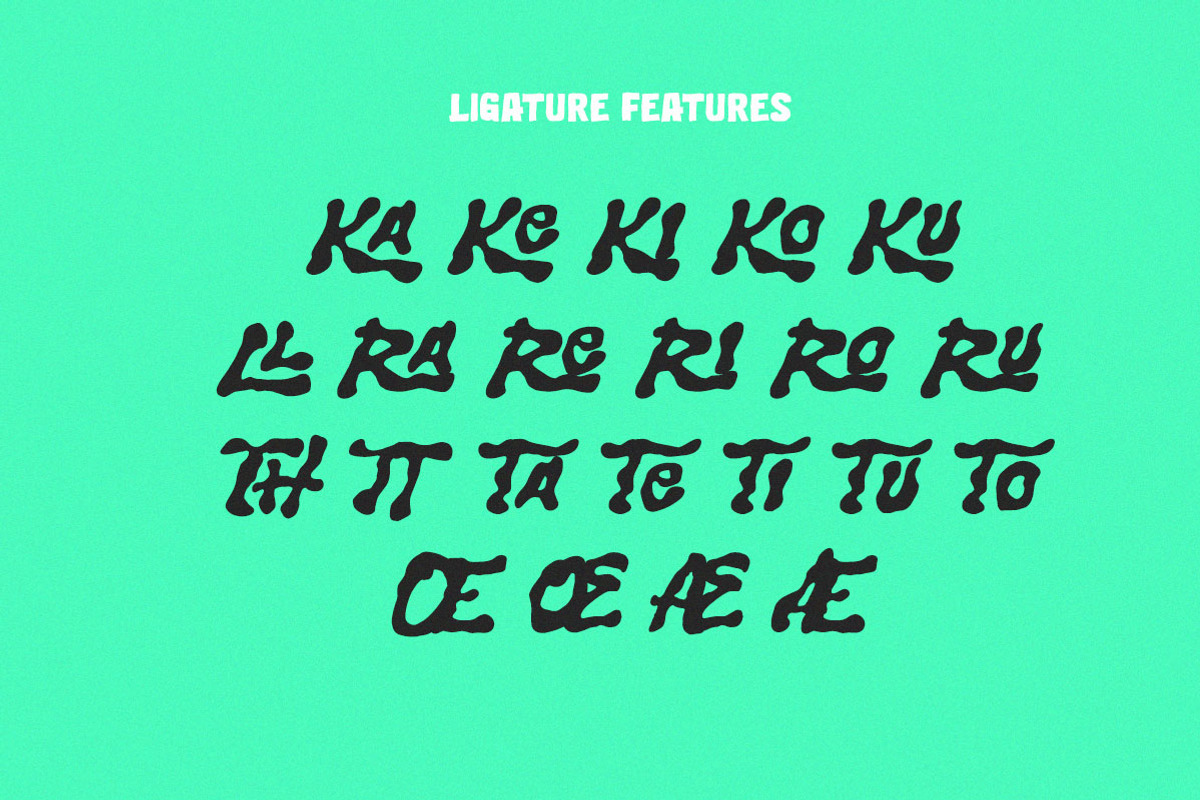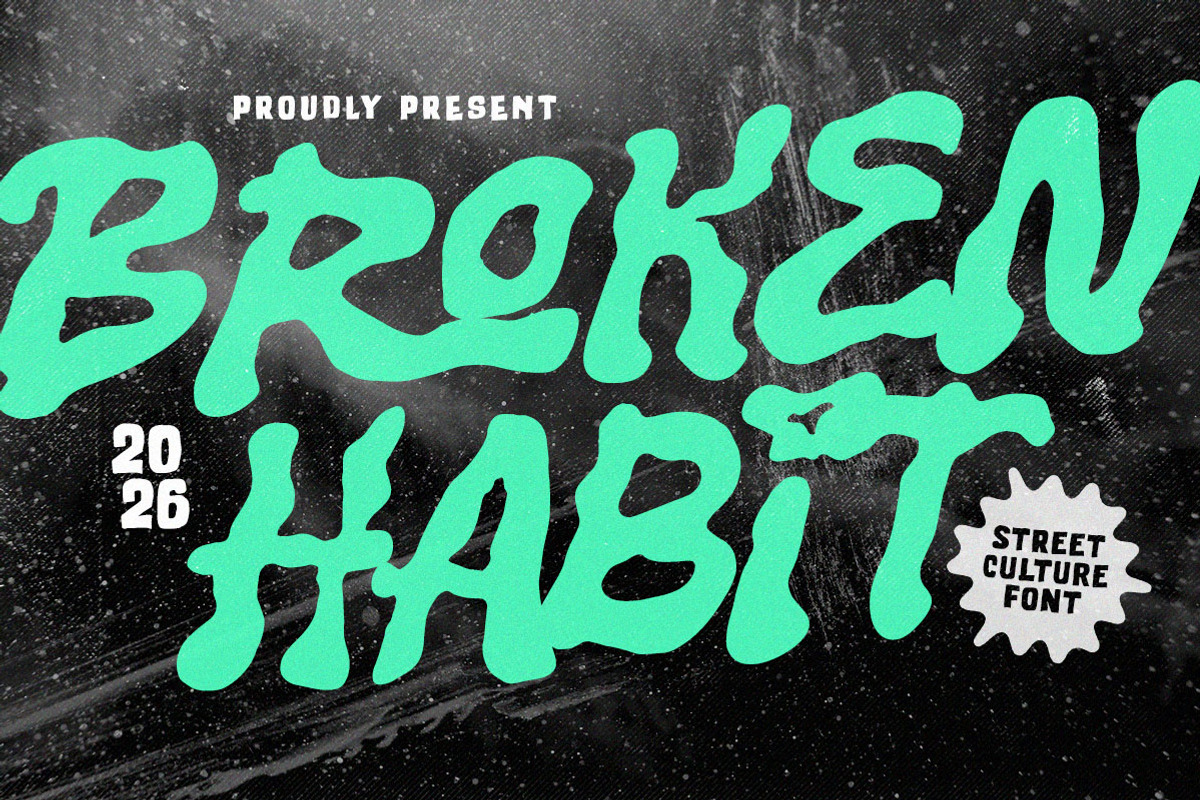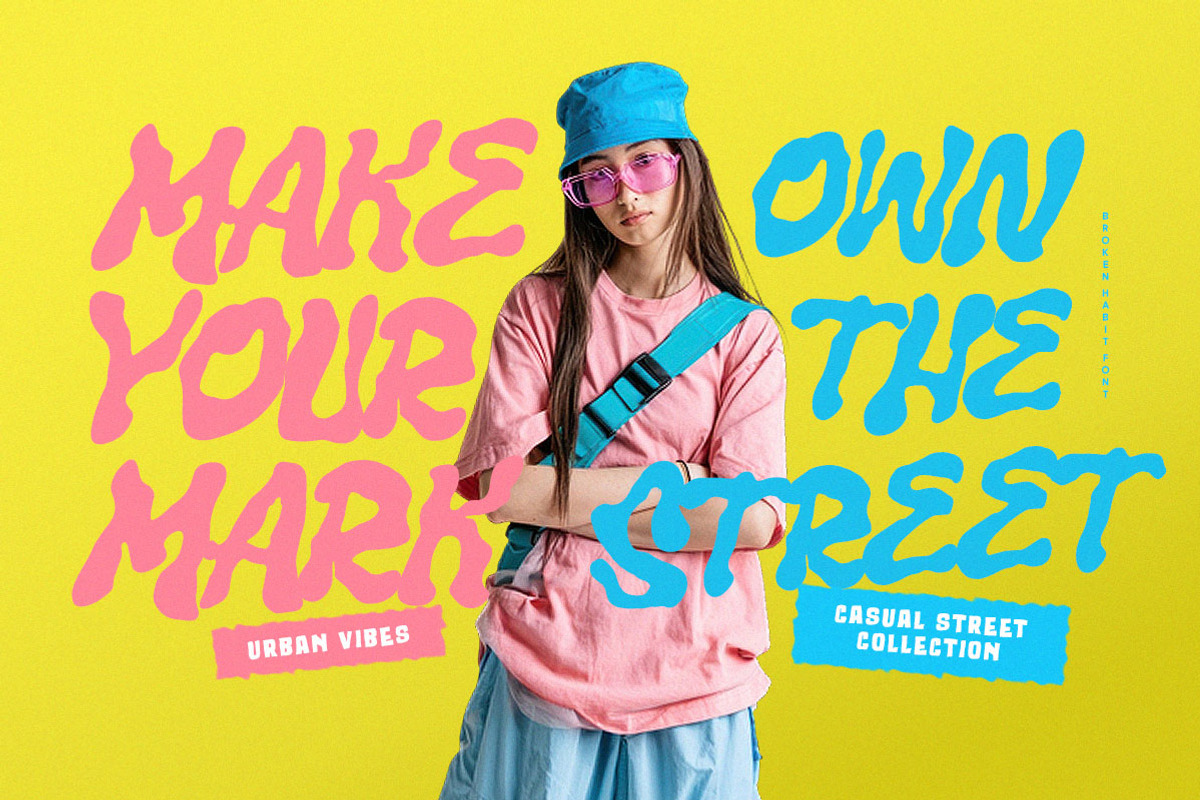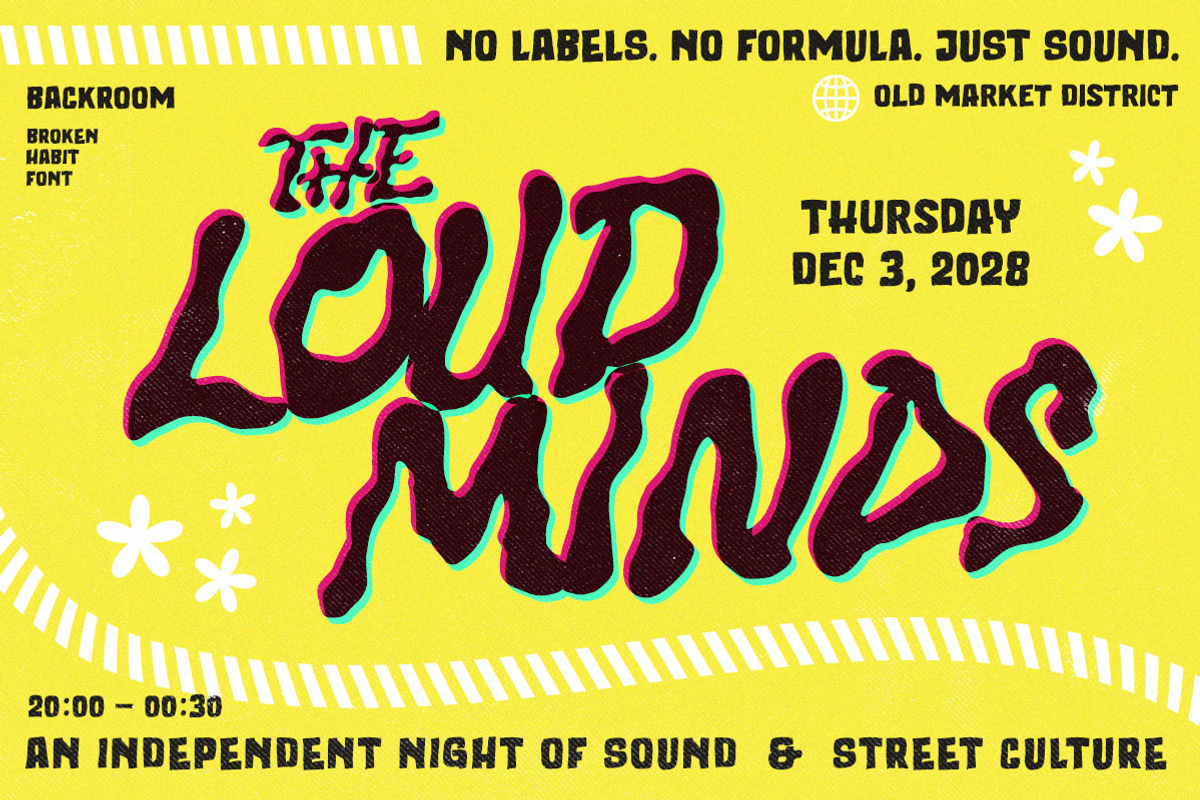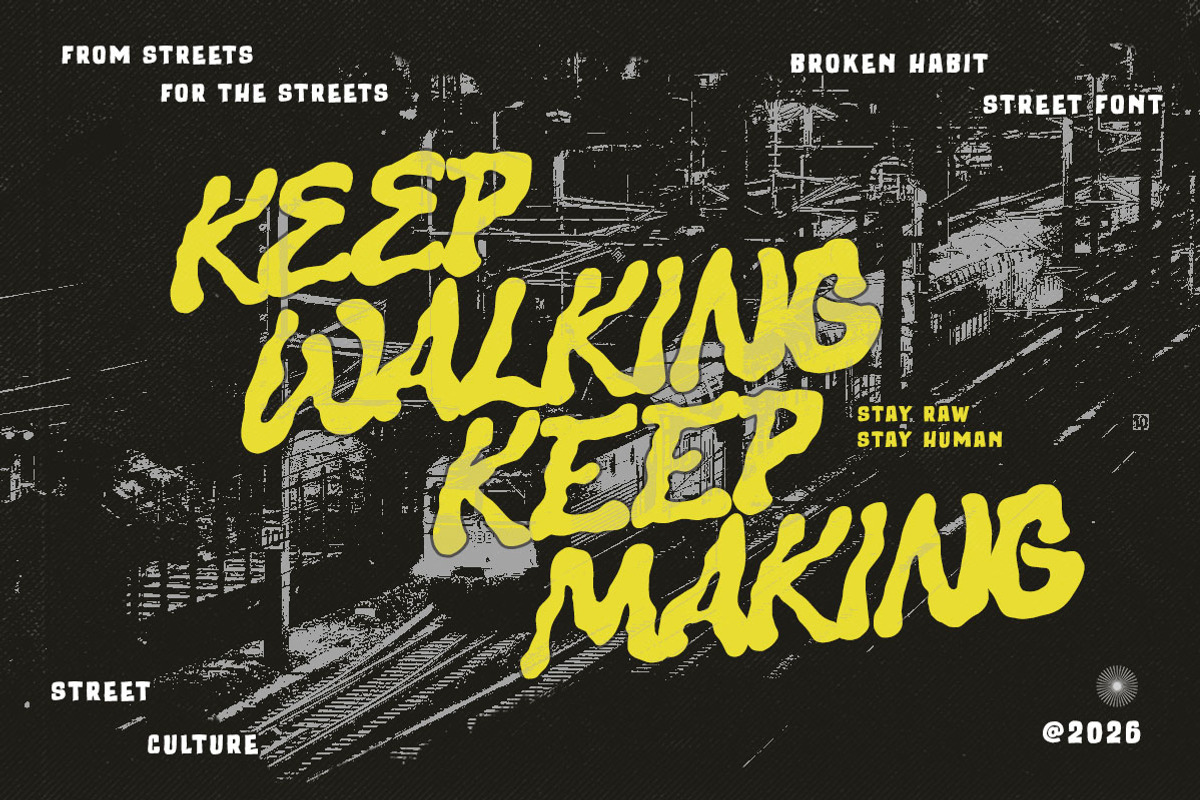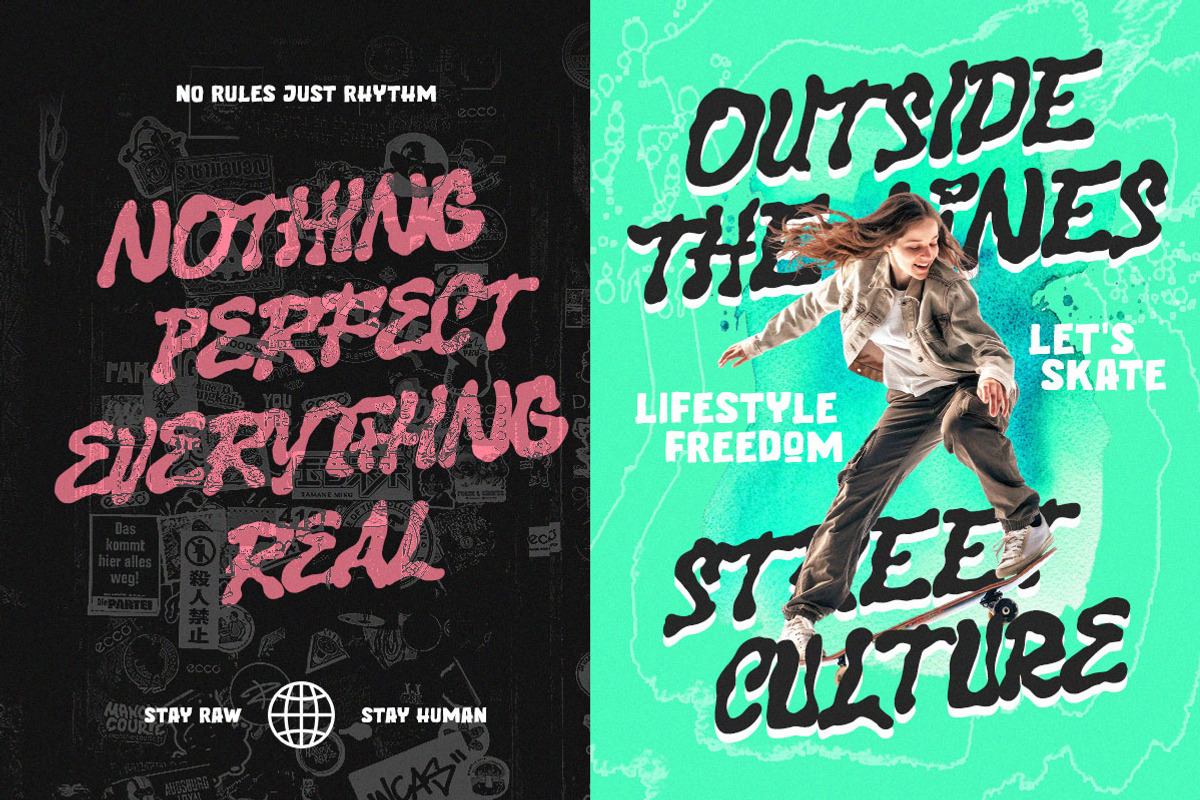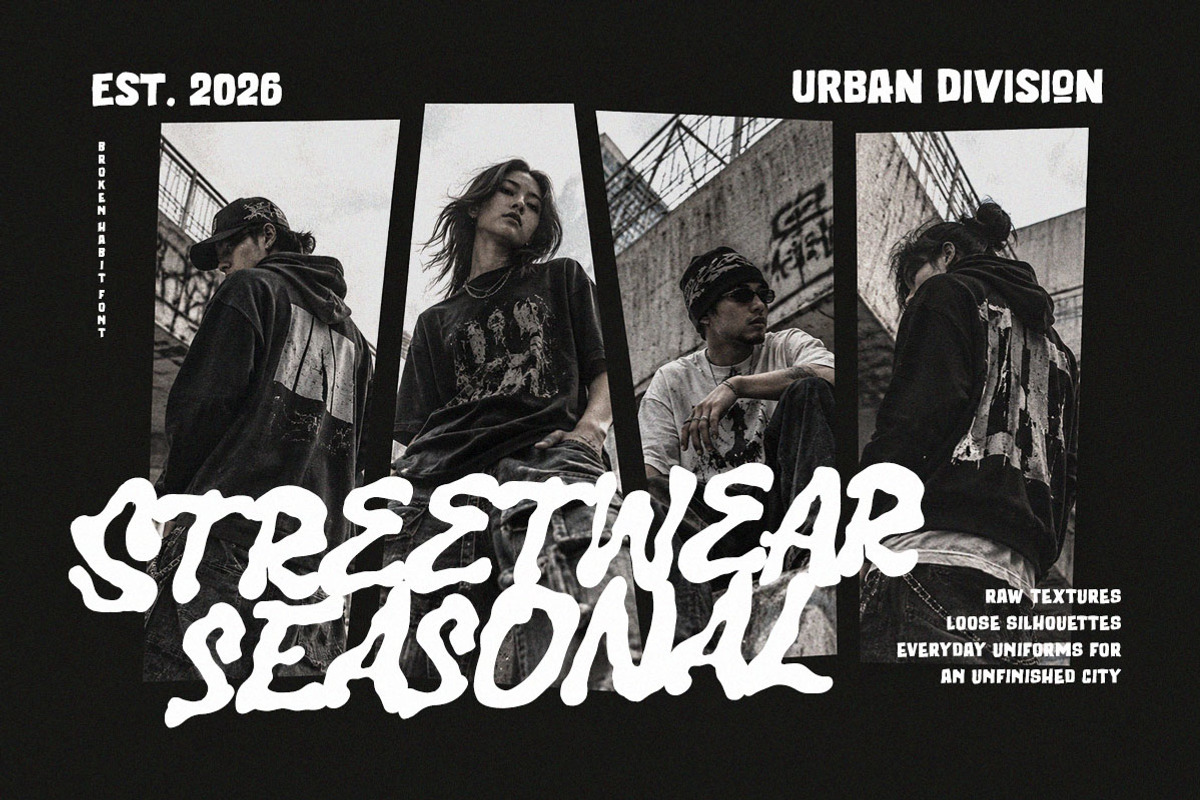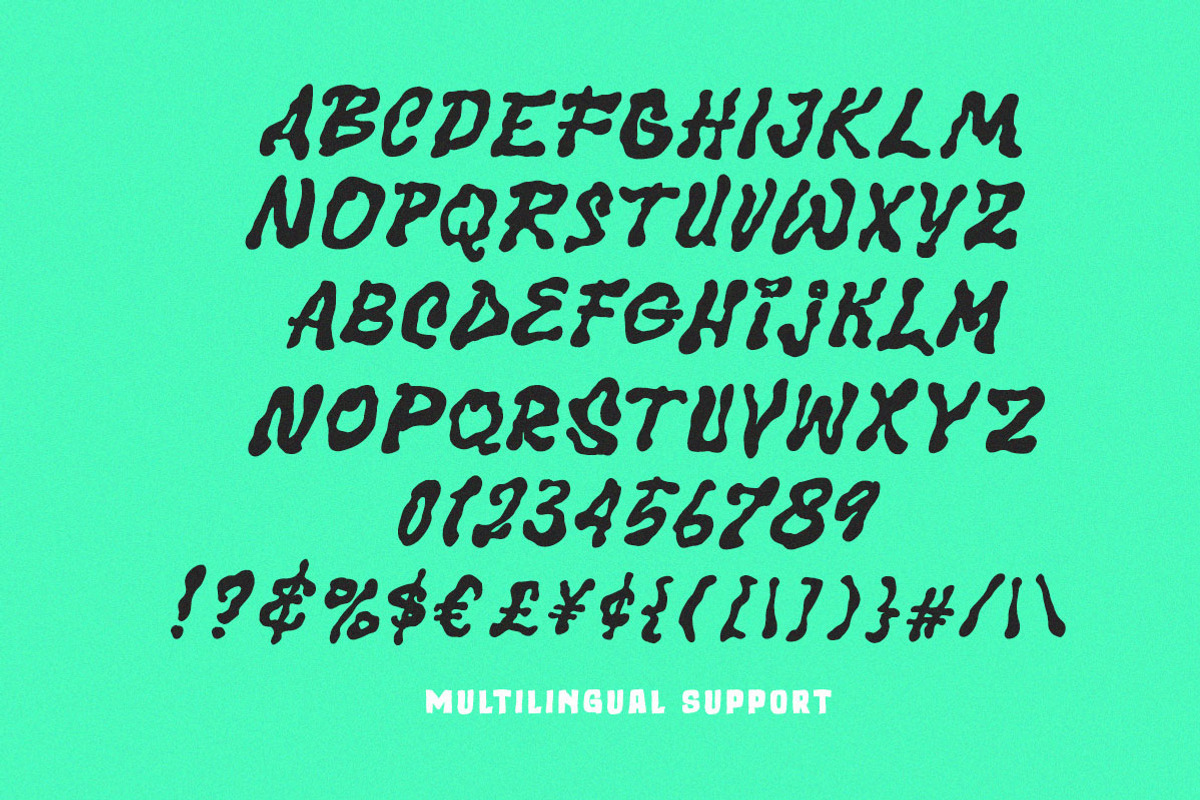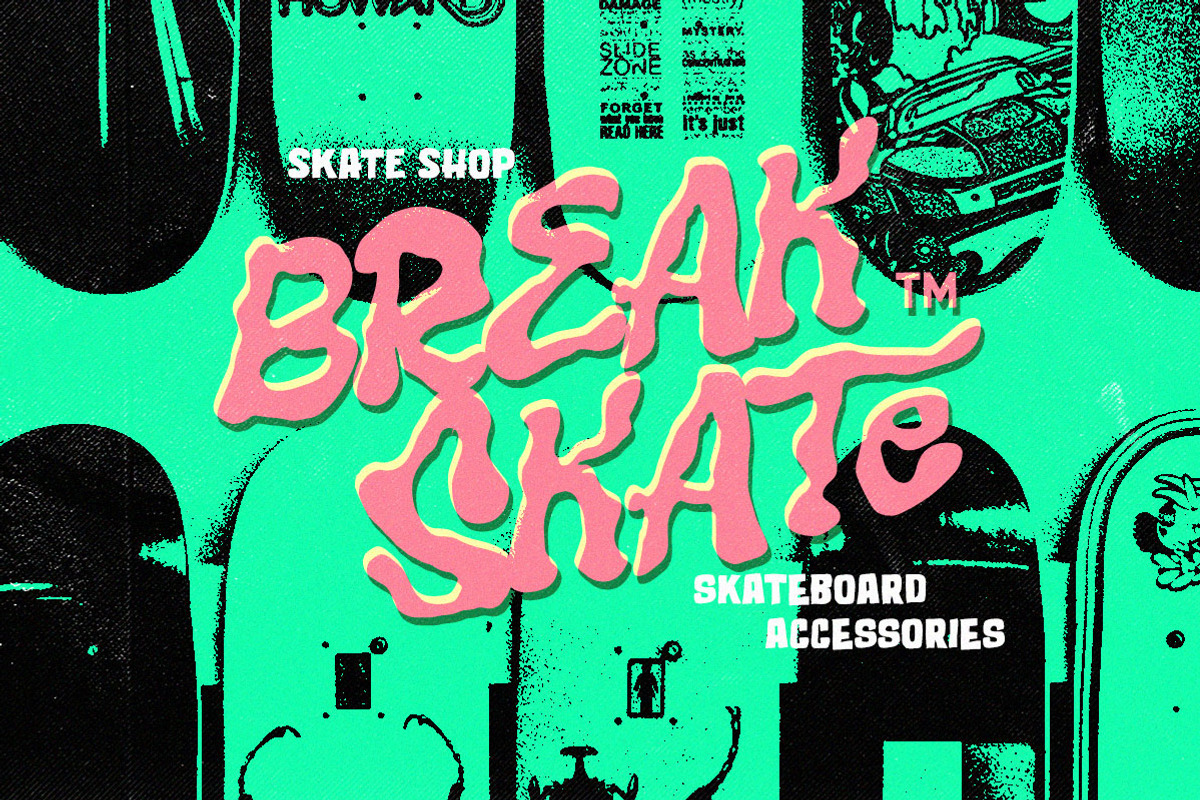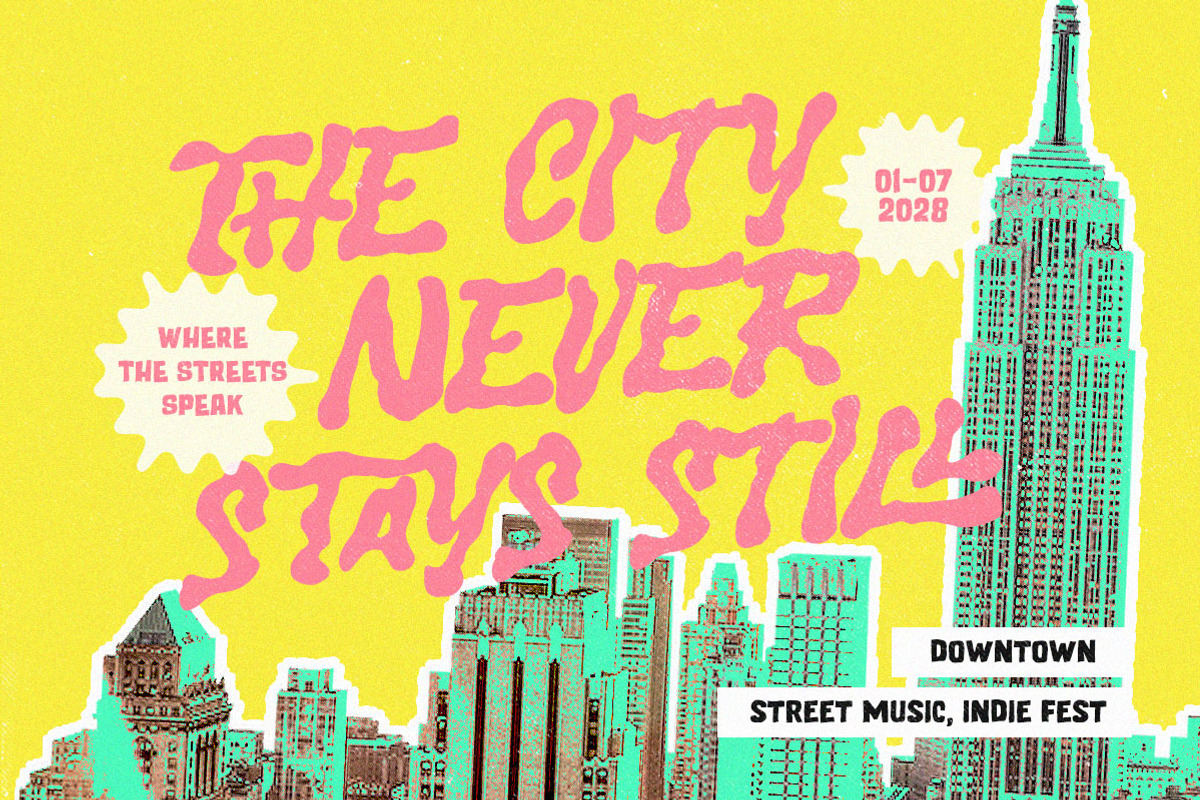
Broken Habit – Funky Street Display
Broken Habit crashes onto the scene with loose curves, warped strokes, and the restless attitude of something scribbled between gig posters and city walls. Its chunky hand-drawn shapes feel raw without losing their playful rhythm, mixing underground street culture with a funky retro edge that refuses to sit still.